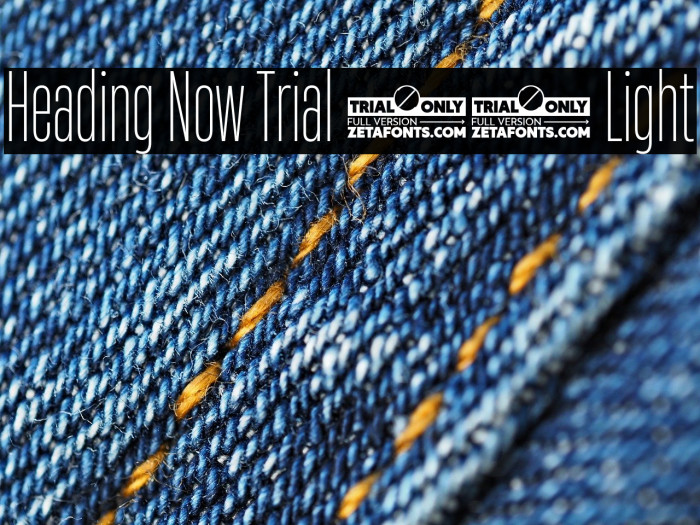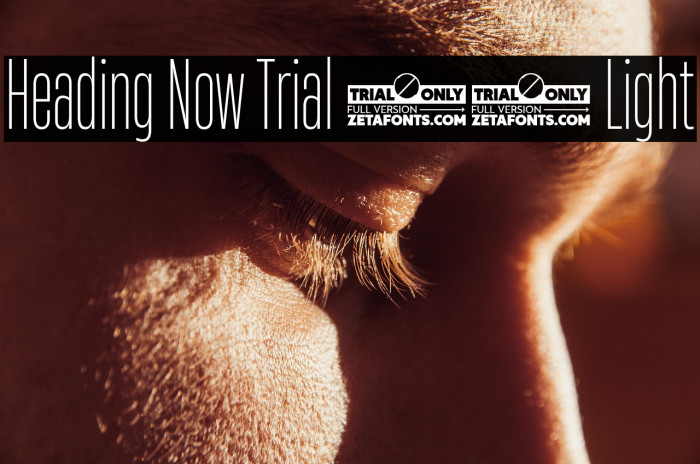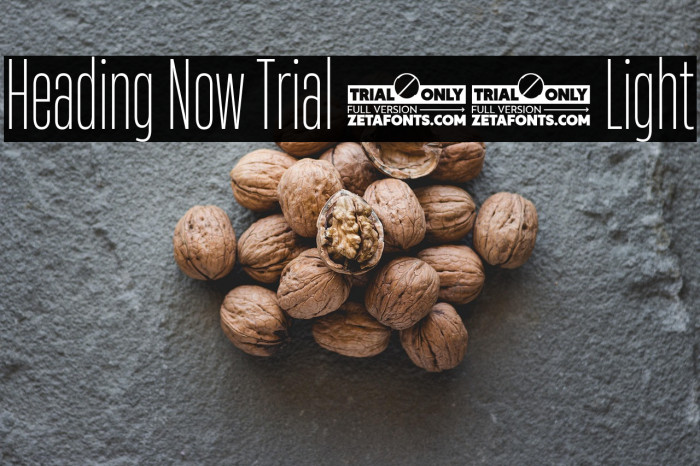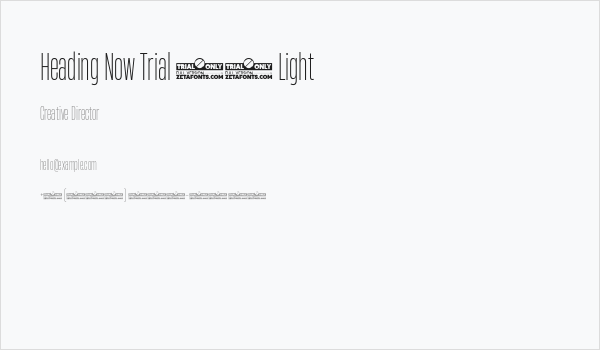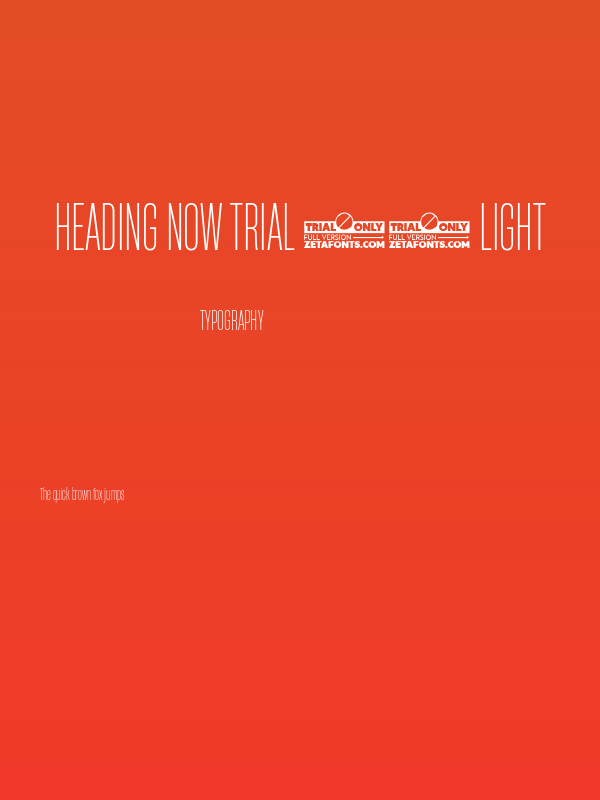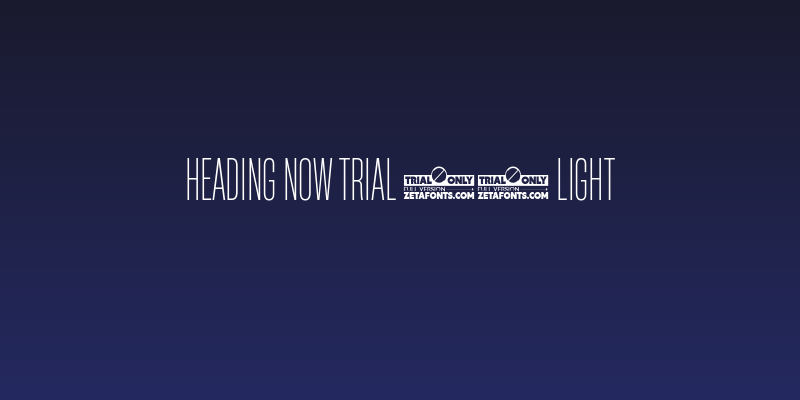
Heading Now Trial 22 Light Font
Heading Now Trial 22 Light Description
This font features a sleek and modern design with tall, narrow characters that convey a sense of elegance and sophistication. The uppercase and lowercase letters maintain a consistent height, creating a uniform appearance. The numerals and special characters are designed with the same thin strokes, ensuring a cohesive look across all text. The font's light weight and condensed width make it ideal for projects requiring a minimalist and contemporary aesthetic.
| Proposed Projects | Ideal for fashion magazines, modern branding, minimalist posters, and elegant invitations. |